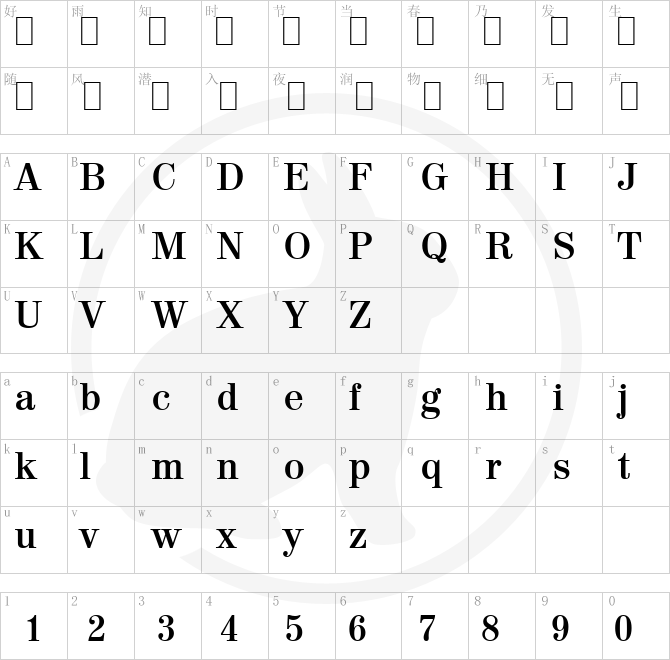
- Font Name:Valencia-Serial
- Subfamily:Alts:Valencia-Serial-Bold
- Full Name:Valencia-Serial-Bold
- PostScript:Valencia-Serial-Bold
Valencia-Serial-Bold.ttf is a very beautiful artistic font, Valencia-Serial-Bold.ttf is widely used in the design and printing of various books and pictures,Valencia-Serial-Bold.ttf has a strong visual impact,Valencia-Serial-Bold.ttf is a commonly used font in newspapers, magazines and books, and is used in posters, e-commerce Poster design, store design, logo design, font design and other fields.Valencia-Serial-Bold.